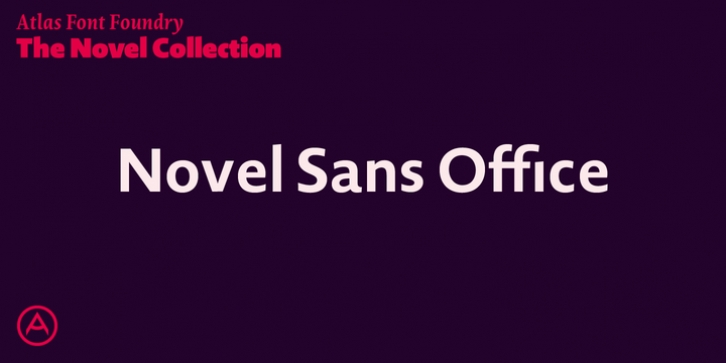
Novel Sans Office Pro was designed by Christoph Dunst and published by Atlas Font Foundry. Novel Sans Office Pro contains 4 styles and family package options.
Novel Sans Office Pro is the humanist grotesque typeface family optimized for office environments within the largely extended award winning Novel Collection, also containing Novel Pro, Novel Sans Condensed Pro, Novel Mono Pro and Novel Sans Rounded Pro.
Novel Sans Office Pro has a carefully attuned character design and a well balanced weight contrast. Classic proportions and the almost upright italic makes Novel Sans Office Pro being a modern humanist with the calligraphic warmth of a real italic. Many similarities with the other typeface families within the Novel Collection enable designers to combine the families and reach highest quality in typography.
Novel Sans Office Pro [1020 glyphs] comes in 6 weights and contains small caps, an extra set of alternate glyphs, many ligatures, lining ï¬gures [proportionally spaced and monospaced], hanging ï¬gures [proportionally spaced and monospaced], small caps figures [proportionally spaced and monospaced], positive and negative circled ï¬gures for upper and lower case, superior and inferior ï¬gures, fractions, extensive language support, arrows for uppercase and lowercase and many more OpenType features.